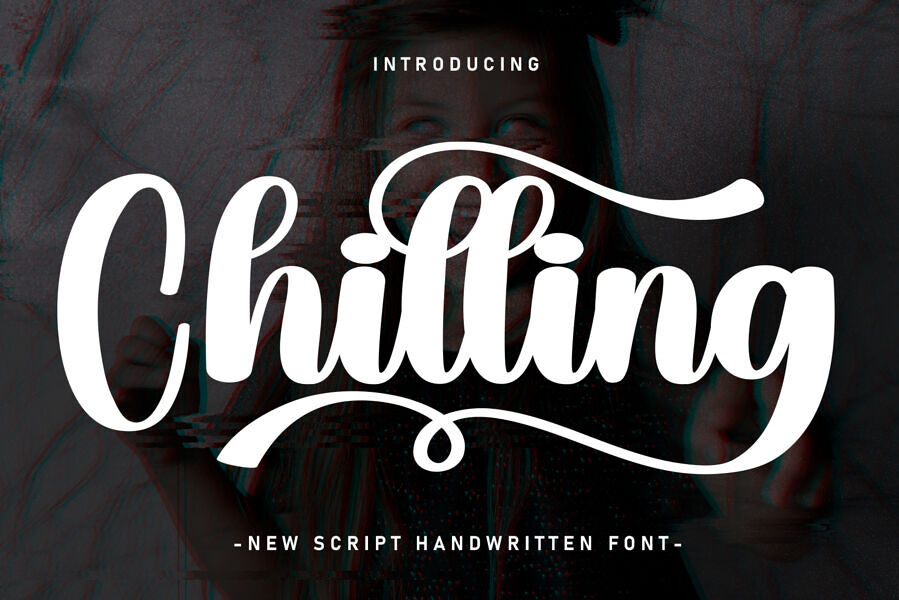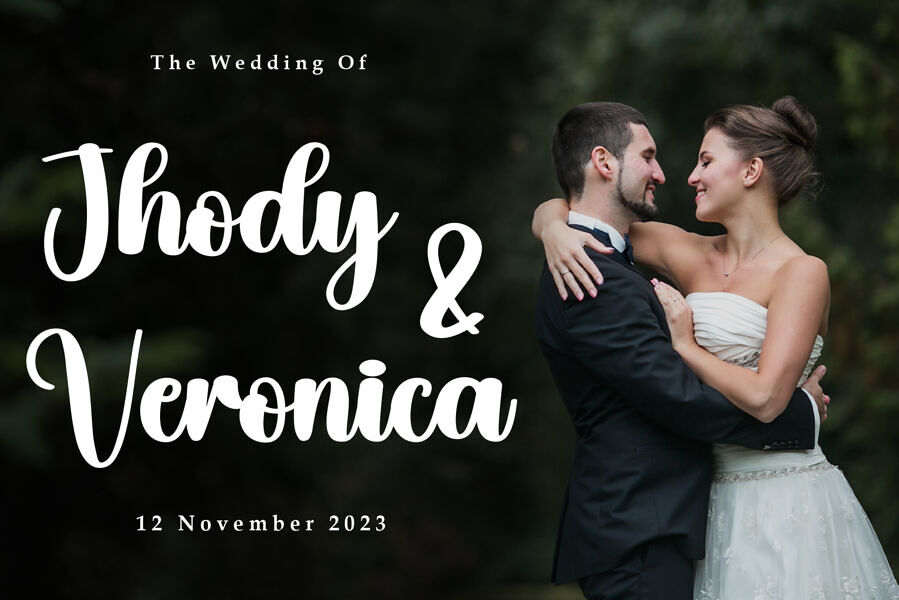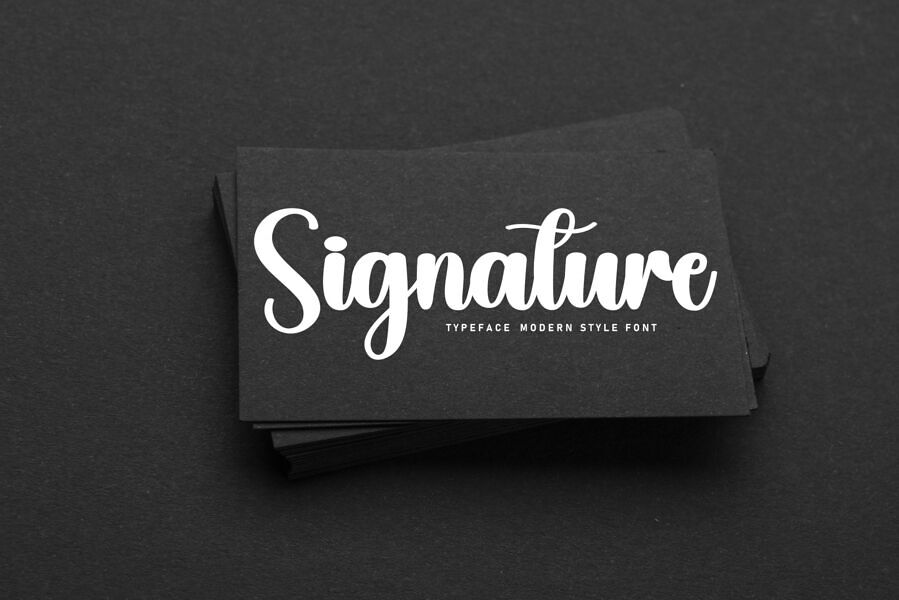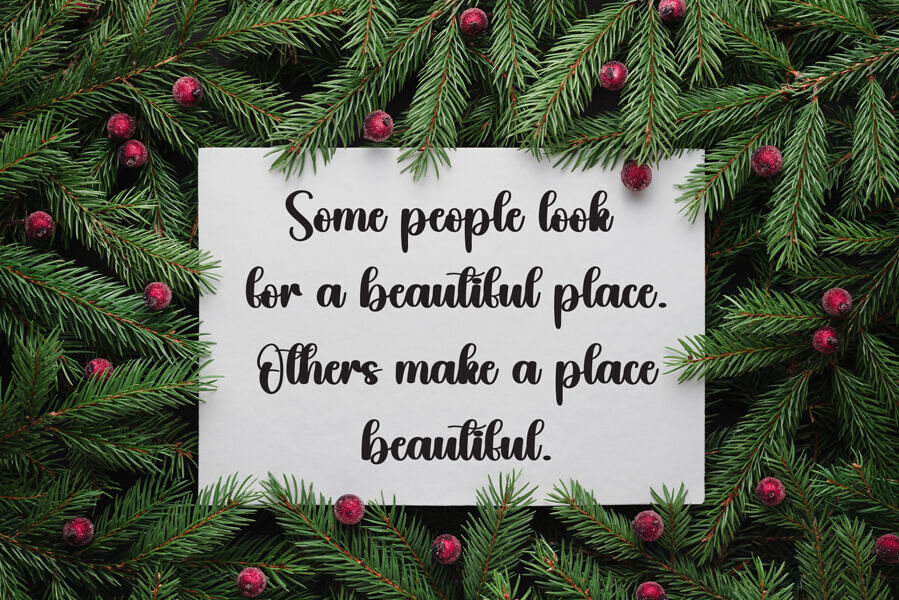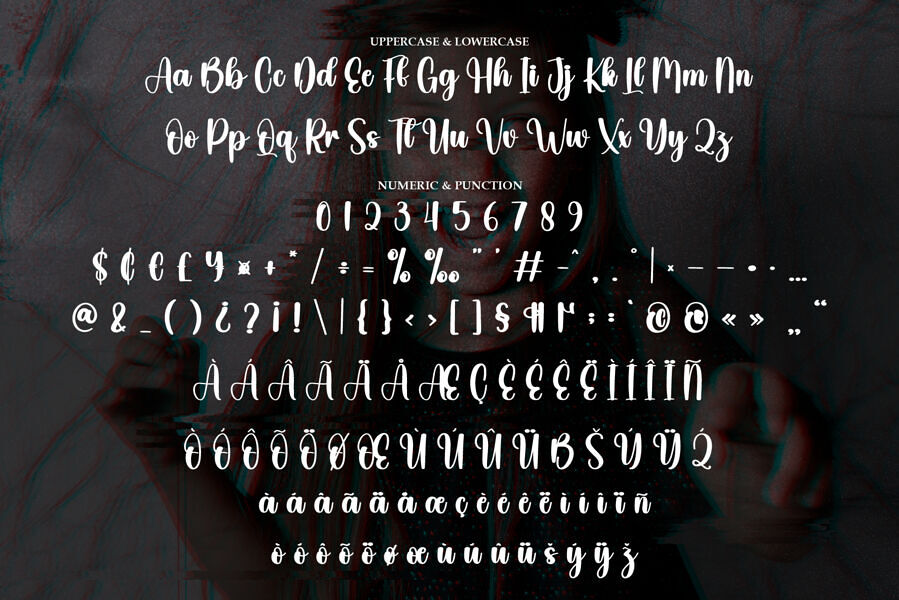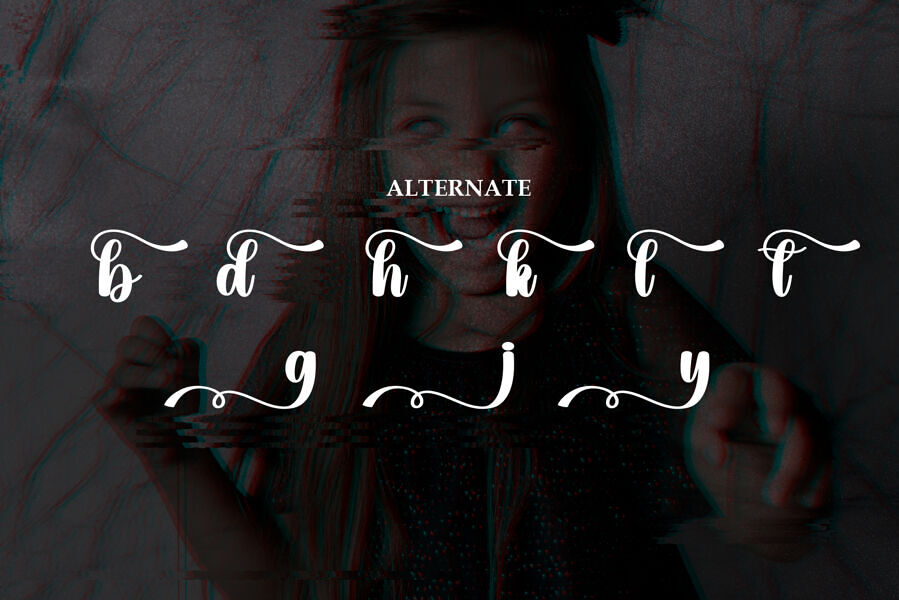
Chilling script font by Scratchones exudes modern elegance with its beautiful, creative strokes. Perfect for both formal and informal projects, it blends a contemporary style with a touch of creativity, making it ideal for invitation cards, letterheads, website logos, social media, banners, advertisements, brochures, packaging, and leather products.
Its luxurious, elegant, and attractive design elevates any product. The font features a complete set of stunning uppercase and lowercase letters, numbers, diverse punctuation marks, and ligatures. All lowercase letters include realistic start and end strokes, ensuring a seamless, polished look for your creative ideas.